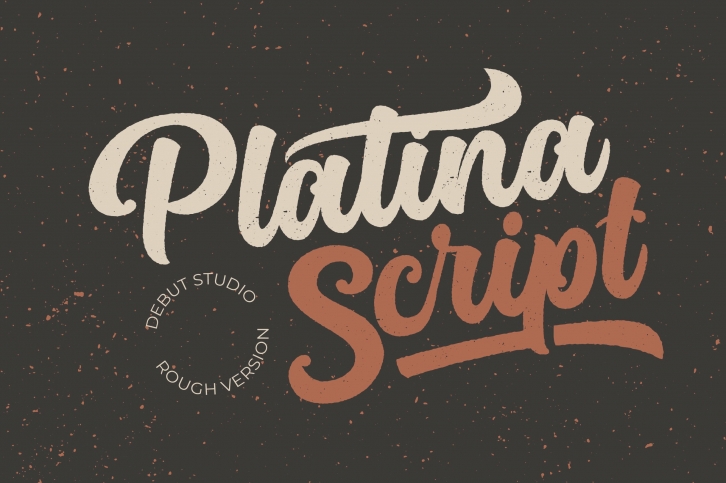
Introducing, our latest stuff, the Platina Rough. This script is suitable for young, passionate design, such as logo design, t-shirts, branding, and various other design purposes.